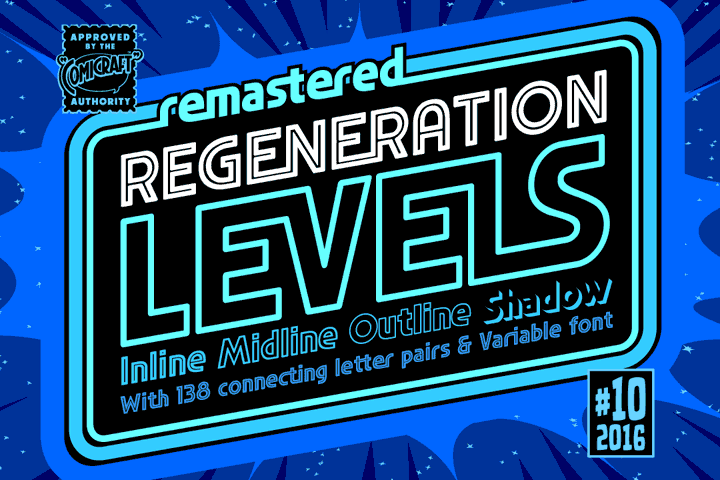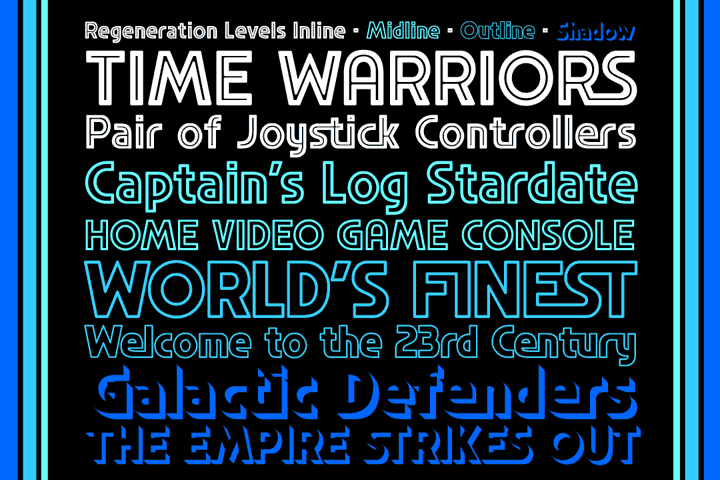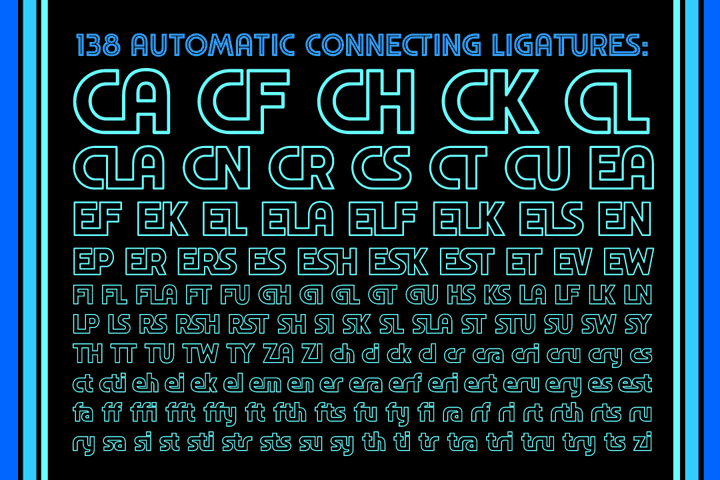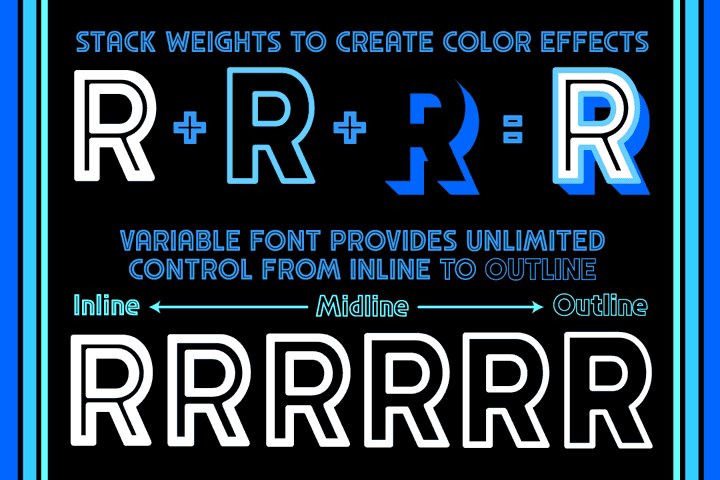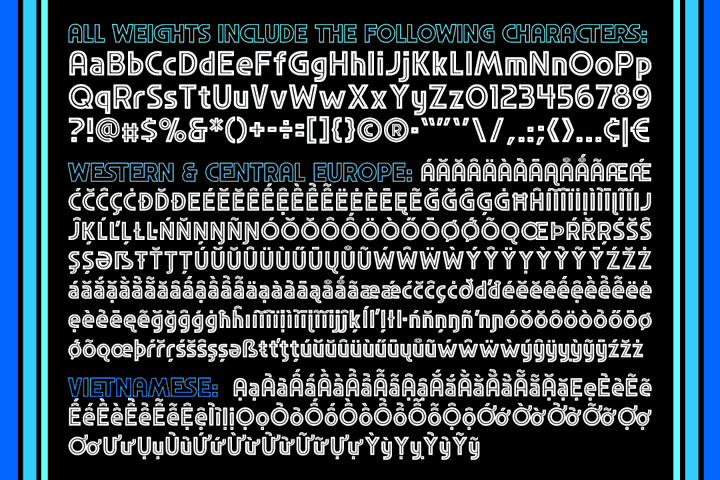
Regeneration Levels variable font in action
- v2.100 July 2024 - Added Tabular numbers & math symbols; improved linespacing and cross-platform name compatibility; new Variable font family name & Italic values; completed Central European language support.
April 2021: remastered with new Levels-Midline weight, 138 automatic ligatures, Variable font, support for Western & Central Europe & Vietnamese, and improved spacing and kerning.
- Four weights (Inline, Midline, Outline & Shadow), Variable font for precise control of weight and italic, 138 connecting ligatures, and support for Western & Central Europe and Vietnamese